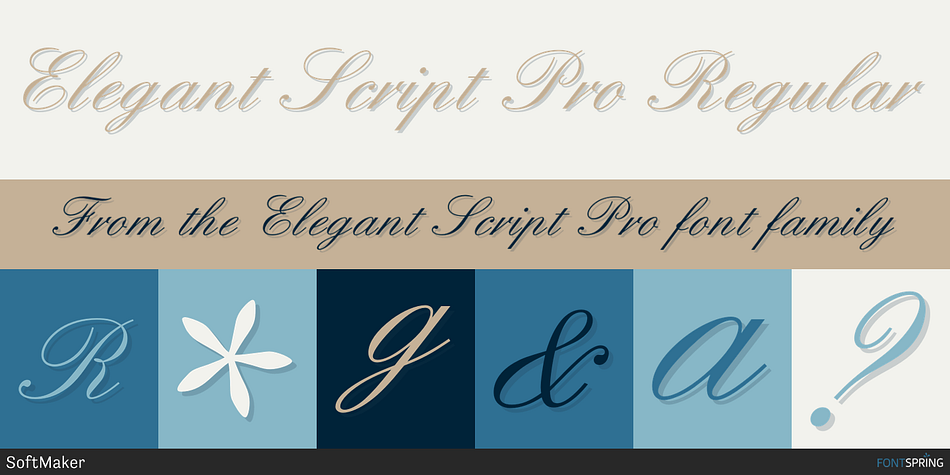
Elegant Script Pro Regular
Elegant Script Pro is a script font published by SoftMaker.
This typeface was created in 1972 and reworked by SoftMaker in 2010.
This typeface was created in 1972 and reworked by SoftMaker in 2010. Elegant Script Pro is perfect for invitations to weddings, celebrations, and dinner parties.
Elegant Script Pro comes with a huge character set that covers not only Western European languages, but also includes Central European, Baltic, Croatian, Slovene, Romanian, and Turkish characters. Case-sensitive punctuation signs for all-caps titles are included as well as many fractions, an extensive set of ligatures, and separate sets of tabular and proportional digits.